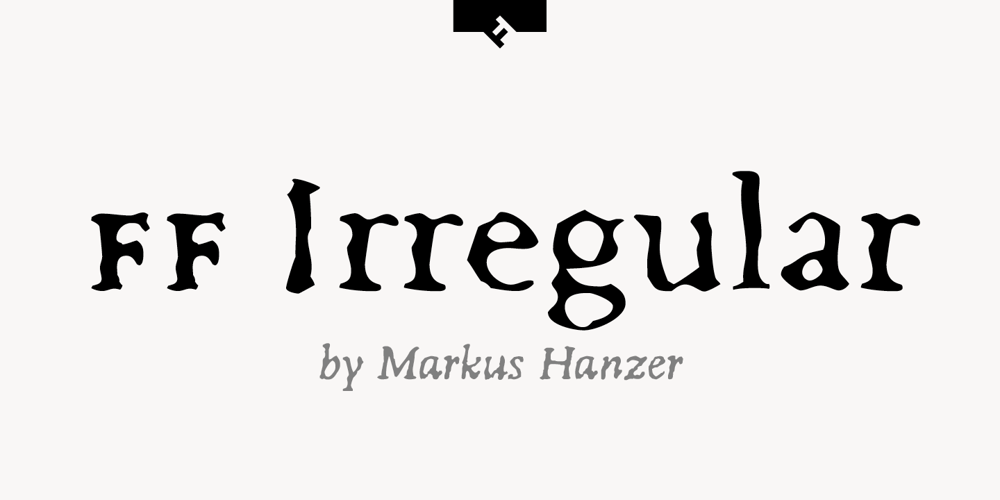
FF Irregular Font Family was designed by Markus Hanzer and published by FontFont. FF Irregular contains 6 styles and family package options. Austrian type designer Markus Hanzer created this display FontFont in 1994. The family has 6 weights, ranging from Light to Black (including italics) and is ideally suited for editorial and publishing and poster and billboards. FF Irregular provides advanced typographical support with features such as ligatures and case-sensitive forms. It comes with proportional lining figures.